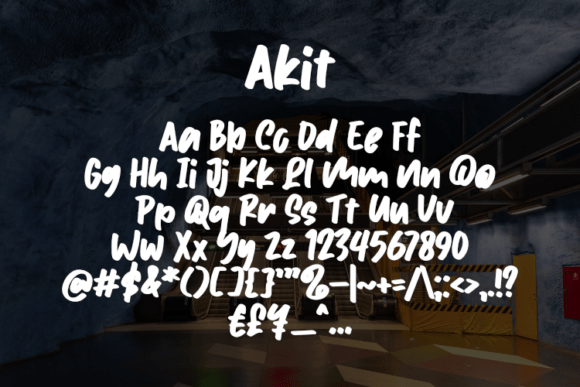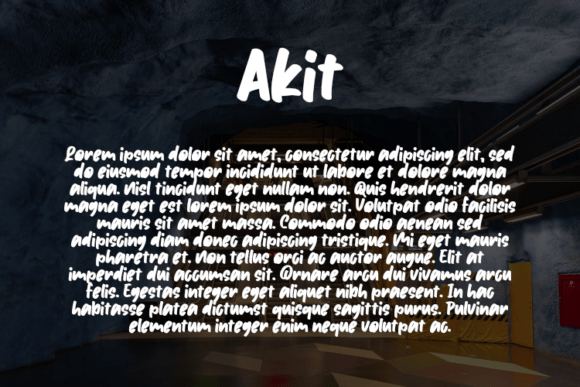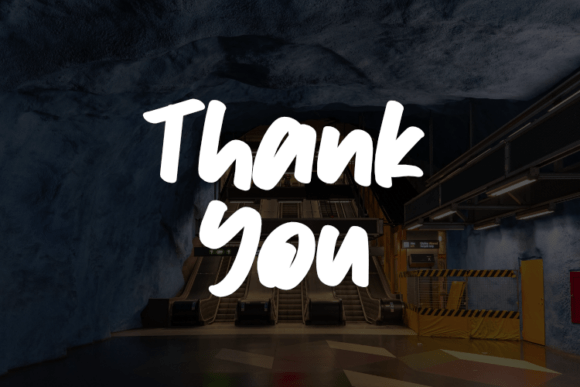
The Akit Font: A Modern Elegance for Creative Projects
A Personal Review of Akit Font
What I Love About Akit Font
- ✨ Excellent Readability: Akit font boasts exceptional legibility across various media, making it perfect for both digital and print projects.
- 💡 OpenType Features: Akit font comes with a range of OpenType features, including glyphs and stylistic alternates, allowing for creative experimentation and customization.
While Akit font has won me over, it’s not without its quirks. For instance:
- 🤔 Limited Character Set: Some users may find the character set a bit limited, particularly when working with non-English languages.
- ⚠️ Occasional Kerning Issues: As with any font, kerning can be a bit tricky, especially when pairing Akit with other fonts.
The Story Behind Akit Font
Akit font was designed with the goal of creating a modern and elegant typeface that would excel in readability and versatility. Inspired by the works of renowned typographers, the creator of Akit aimed to craft a font that would seamlessly adapt to various design contexts, from digital screens to print materials.
| Font Name | Akit Font |
| Author | Eric Kusuma |
Q: Does Akit font come with any OpenType features?
A: Yes, Akit font includes a range of OpenType features, such as glyphs and stylistic alternates, allowing for creative experimentation and customization.
Q: Is Akit font suitable for body text and long-form content?
A: While Akit font excels in headings and titles, its readability also makes it suitable for body text and long-form content, particularly in digital and print materials.